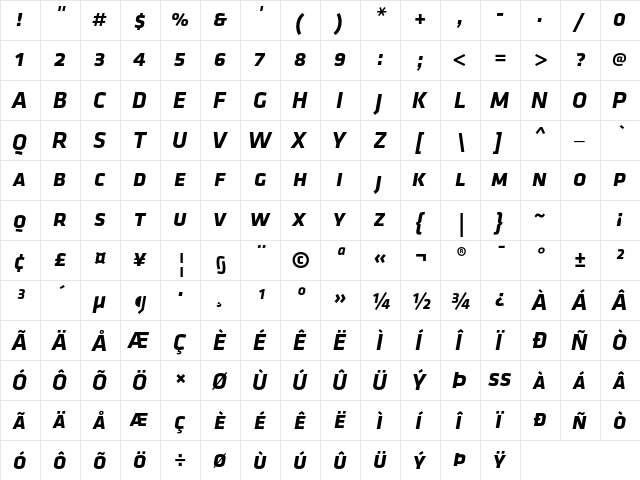
Klavika Bold Caps Bold Italic Font Preview
Design Context for Klavika Bold Caps Typeface
Klavika Bold Caps takes a measured approach to typography — its balanced proportions and neutral character make it a reliable workhorse for both digital and print work. The slanted form adds forward momentum and visual energy. The heavy weight commands attention and anchors typographic hierarchies.
Pro Tip: Try Klavika Bold Caps for annotation and caption copy alongside an upright companion — the contrast in angle creates a dynamic but ordered typographic system.